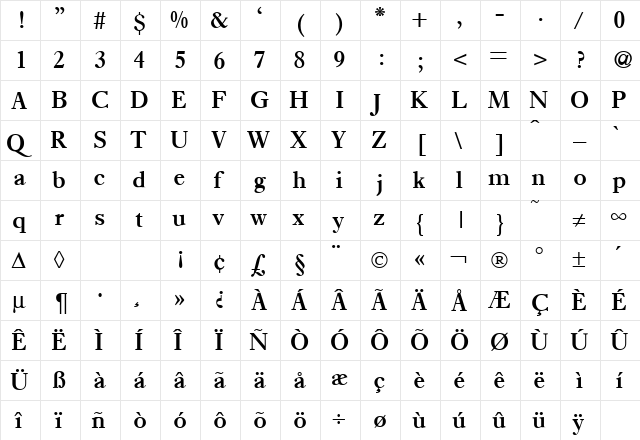
Ehrmann Bold
Design Context for Ehrmann Typeface
Ehrmann takes a measured approach to typography — its balanced proportions and neutral character make it a reliable workhorse for both digital and print work. Its bold stroke weight gives it real presence on the page.